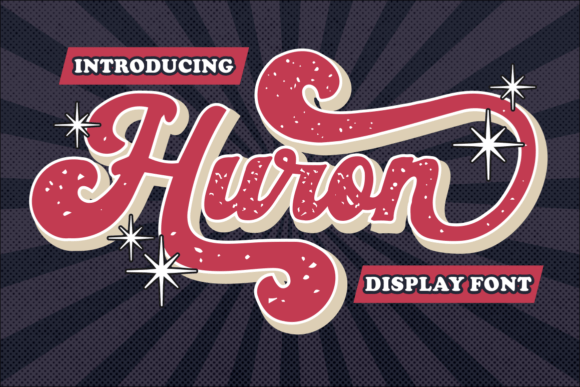
Introducing Huron Font, the Best Font For Magazine that will transport your designs to the bygone era with its captivating retro typography. Created by putracetol, this script font brings back the charm of vintage style with a bold and groovy appearance that is sure to grab attention.
With its playful and nostalgic touch, Huron Font adds a sense of nostalgia to your designs, evoking a longing for the classic typography of the past. Its numerous alternative characters give you the creative freedom to experiment and customize your text, ensuring that your designs are unique and eye-catching.
Huron Font comes in two versions: clean and rough/texture. The clean version provides a polished and modern look, while the rough/texture version adds an authentic and aged effect. This flexibility allows you to tailor your designs to fit various projects and design themes.
Whether you're creating a logo for a classic car business, designing a retro poster, or crafting a vintage-inspired magazine cover, Huron Font is the perfect choice. Its retro and vintage-inspired style adds a touch of vibrancy and personality to your text, making it stand out from the crowd.
With Huron Font, your designs will exude retro flair and timeless appeal. The bold and groovy vintage style of this font will elevate your designs and make them truly remarkable. Whether you choose the clean version for a modern look or the rough/texture version for an aged effect, Huron Font guarantees that your designs will capture the essence of classic typography.